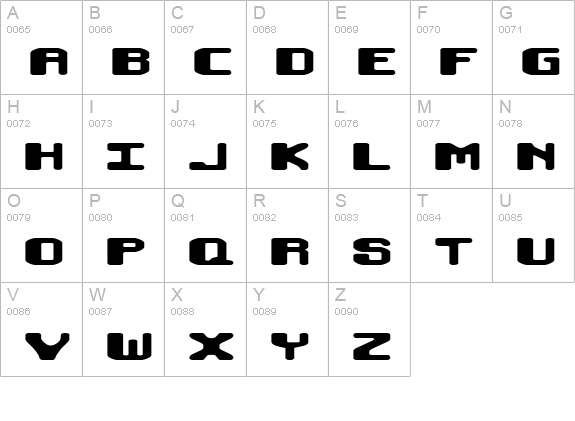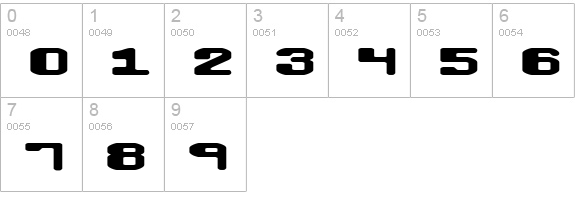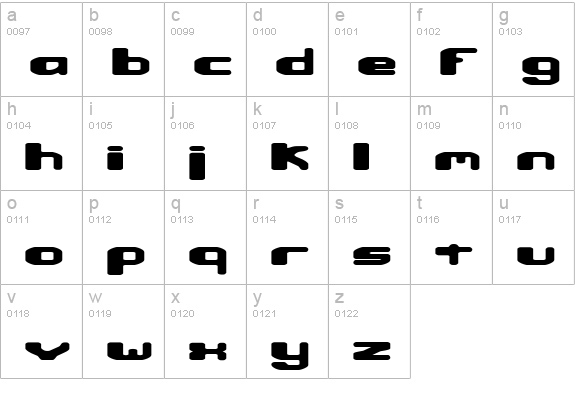
Macropsia BRK Font Details
Macropsia BRK is a stunning font that combines elegance with boldness, making it perfect for capturing attention in any design project. With its unique and eye-catching letterforms, this font stands out from the crowd and adds a touch of sophistication to any creative work. Designed with meticulous attention to detail, Macropsia BRK exudes a sense of modernity and professionalism. Its clean lines and well-defined curves create a harmonious balance that is pleasing to the eye. Whether used for headlines, logos, or body text, this font will make a lasting impression. What makes Macropsia BRK even more appealing is that it is freely available to download at FontsMarket.com. This means that you can easily access this exceptional font without spending a dime. With just a few clicks, you can enhance your design projects with the elegance and style that Macropsia BRK has to offer. So why settle for ordinary when you can have extraordinary? Download Macropsia BRK today from FontsMarket.com and elevate your designs to new heights. Don't miss out on this opportunity to add a touch of creativity and professionalism to your work, all for free.